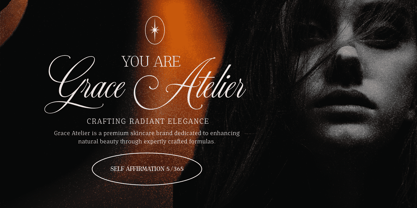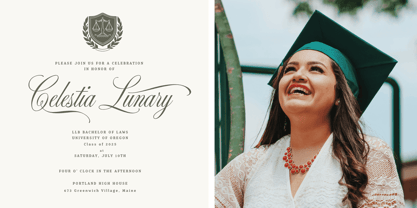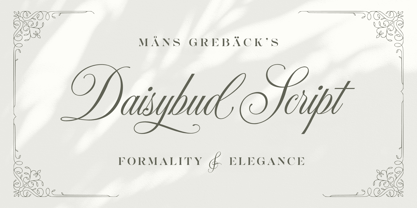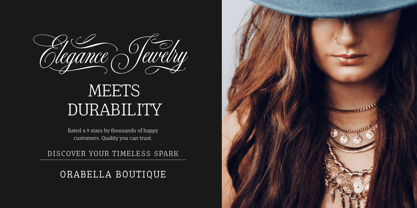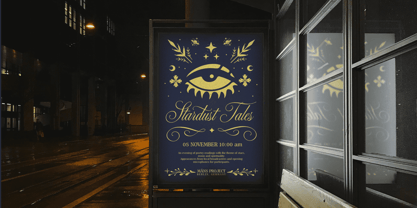
Daisybud Script
von Mans Greback
Daisybud Script is a modern interpretation of an elegant and flourishing typeface.
The font has an fine, airy feel and with long, flowy connections, created for delicate headlines, a intricate logotypes or a custom invitation card for a beautiful event. There is a calm and soft vibe to the swirly lines, adding to the sophistication.
Daisybud Script is built with advanced OpenType functionality and guaranteed top-notch quality, containing stylistic and contextual alternates, ligatures and more automatic and manual features; all to give you full control and customizability.
It has extensive lingual support, covering all Latin-based languages, from North Europa to South Africa, from America to South-East Asia. It contains all characters and symbols you'll ever need, including all punctuation and numbers.
Mans Greback put together this decorative script font, giving it a charming personality and an finesse touch.